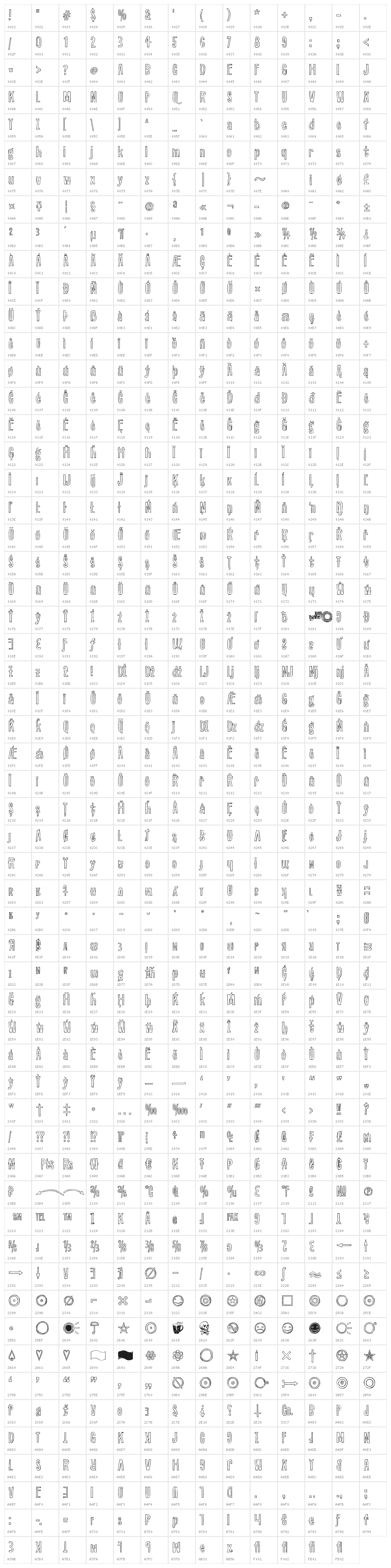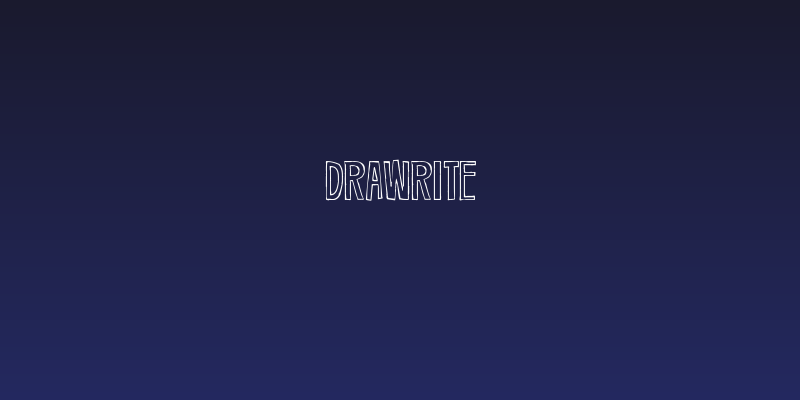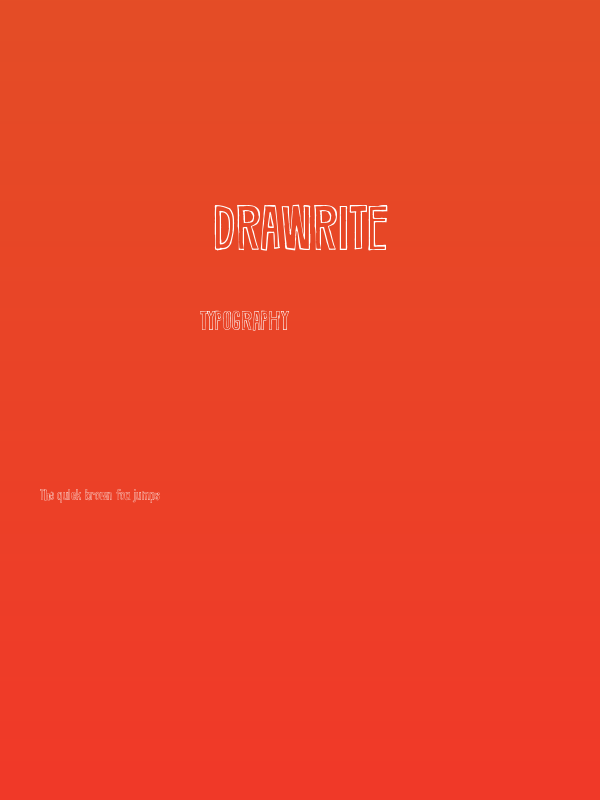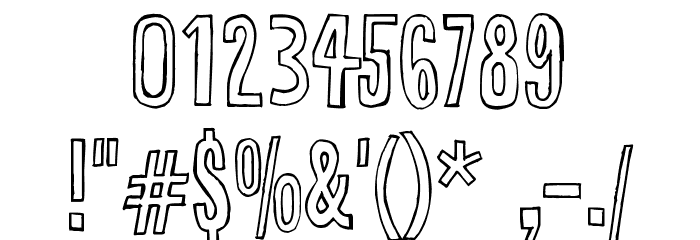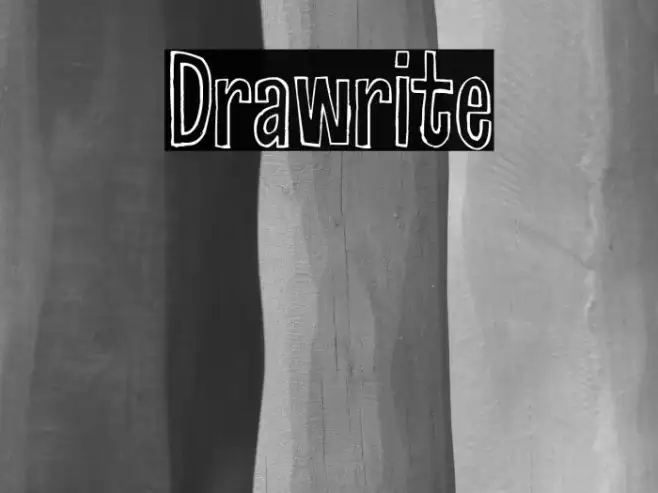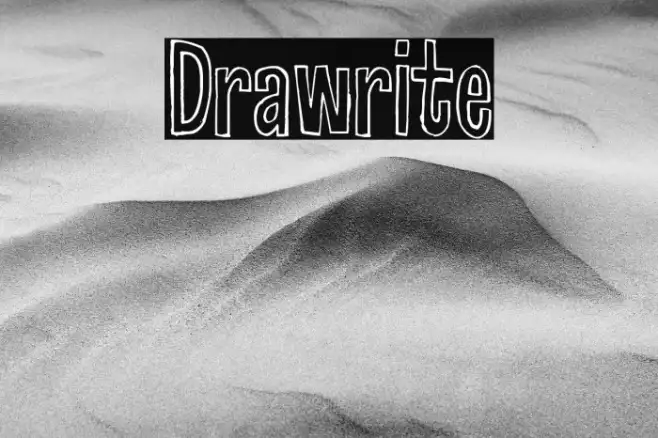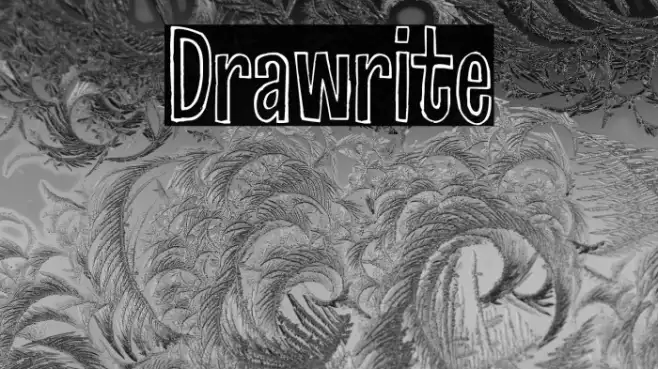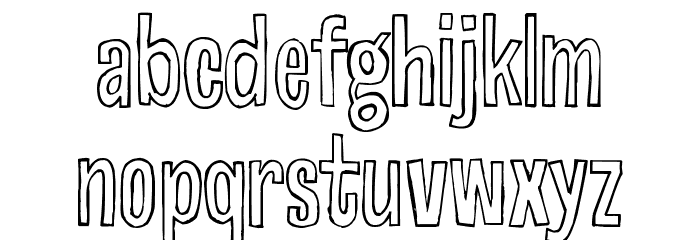
Drawrite Font
Drawrite Description
This font features a playful and hand-drawn aesthetic, characterized by its bold, outlined letters that give a sense of depth and dimension. The uppercase and lowercase letters maintain a consistent style, with slightly irregular lines that add to its casual and informal appearance. The numerals and special characters follow the same design, ensuring uniformity across all glyphs. The font's unique style makes it stand out, offering a creative and artistic vibe suitable for various design projects.